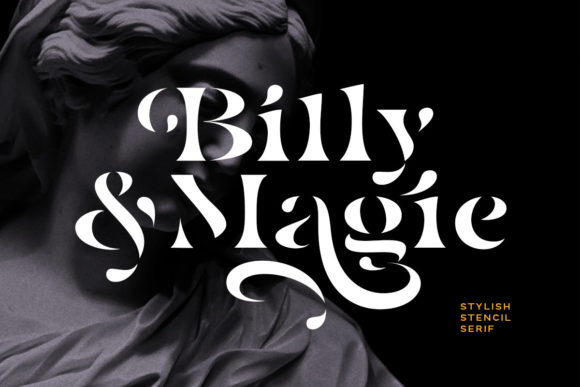
Billy Magie is the epitome of sophistication and style, a serif font that exudes elegance and captivates hearts. Its meticulously crafted glyphs and graceful swashes dance across your designs, weaving a tapestry of pure artistry.
This font is not merely a tool; it's a gateway to unlocking your creativity's full potential. Its bold and confident strokes command attention, making it the perfect choice for headlines that demand to be noticed. With Billy Magie, your words will leap off the page, captivating your audience and etching themselves into their memories.
But Billy Magie is more than just a pretty face. Its versatility knows no bounds, adapting seamlessly to any project you throw its way. Whether it's a captivating logo, an alluring poster, or an unforgettable invitation, Billy Magie elevates your designs to new heights of sophistication.
Embrace the power of Billy Magie, and watch your creations transform into masterpieces that resonate with your audience. Let its timeless beauty and bold character inspire you to craft designs that leave an everlasting impression. Add Billy Magie to your font collection today, and embark on a journey of boundless creativity.